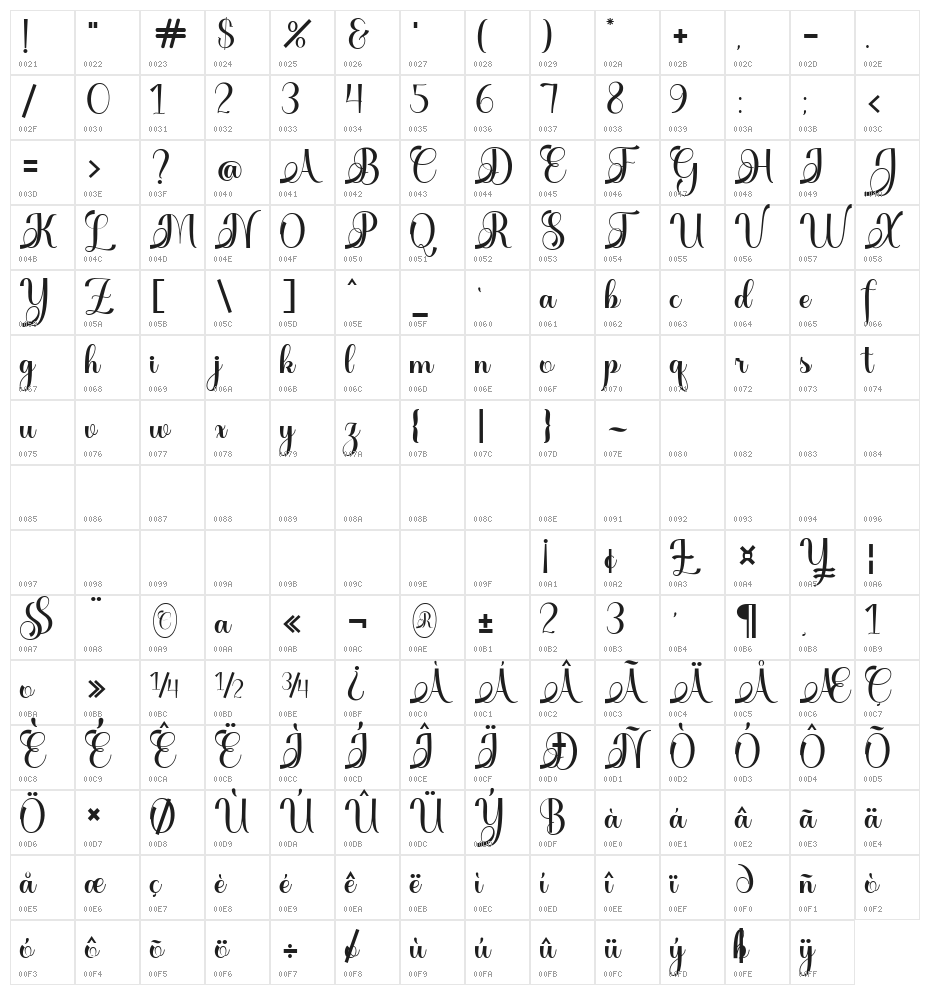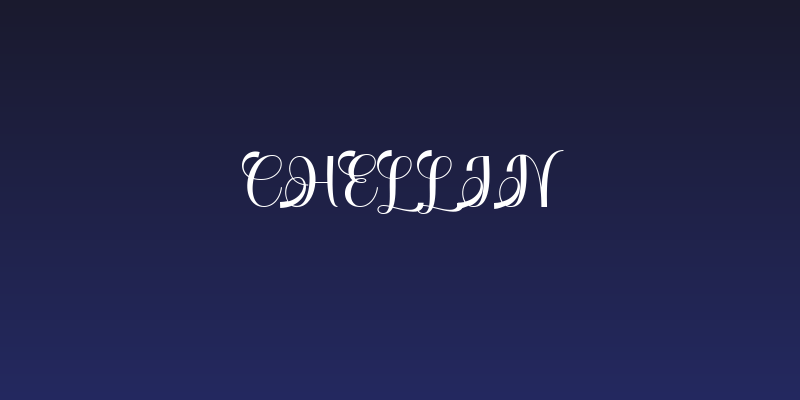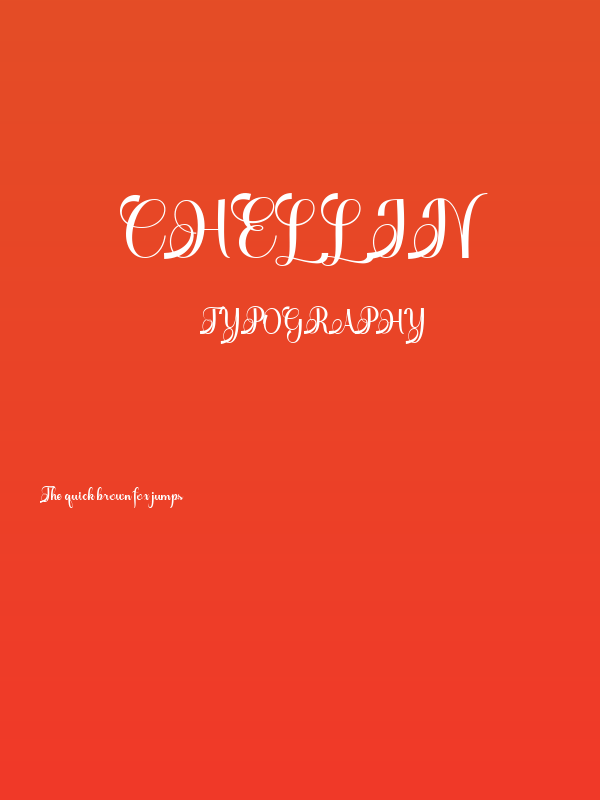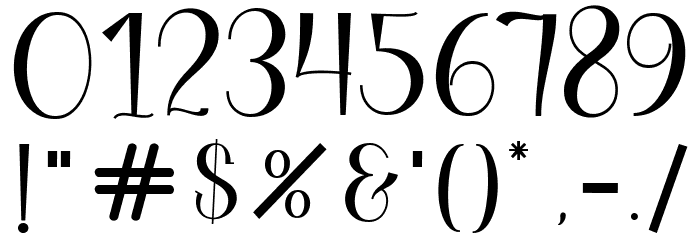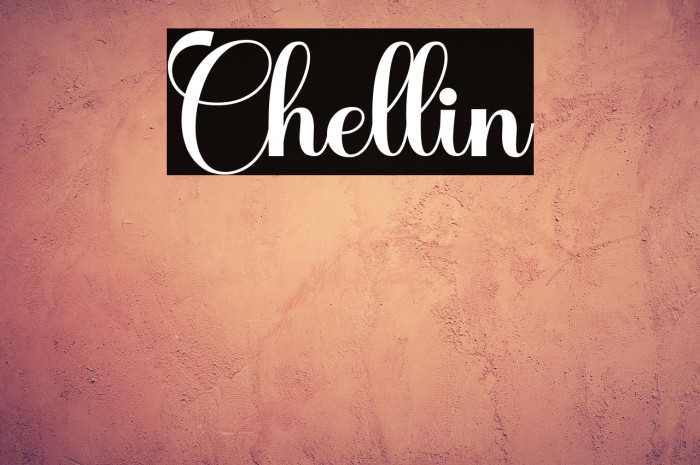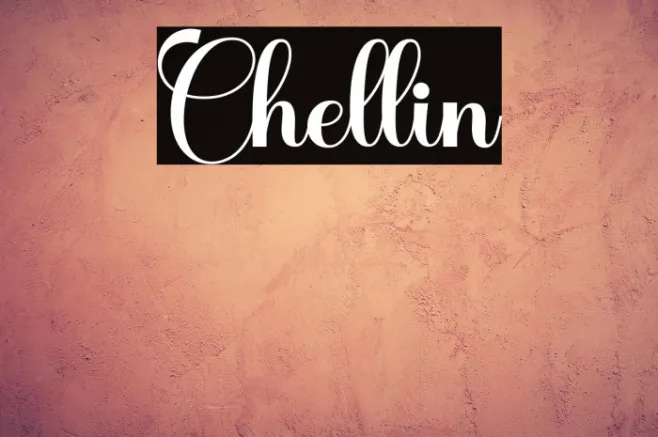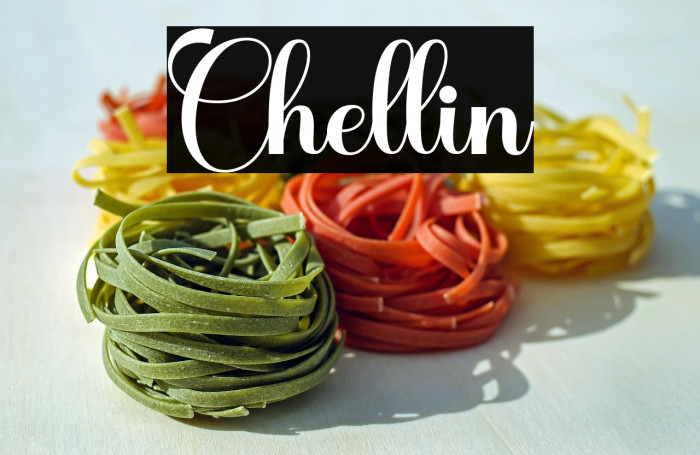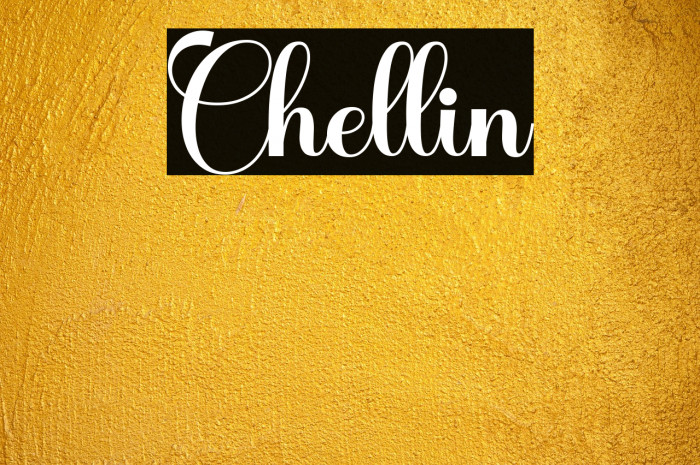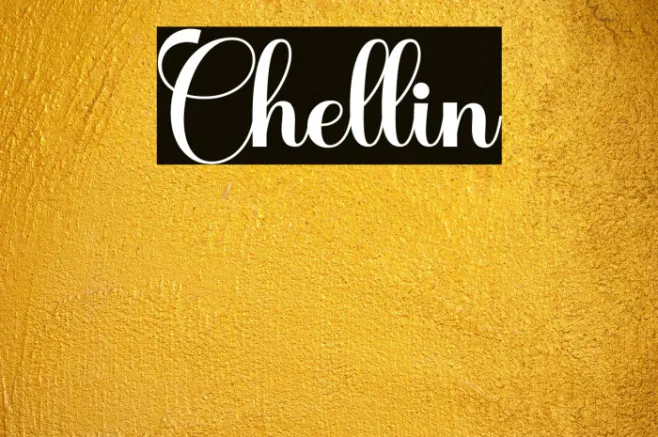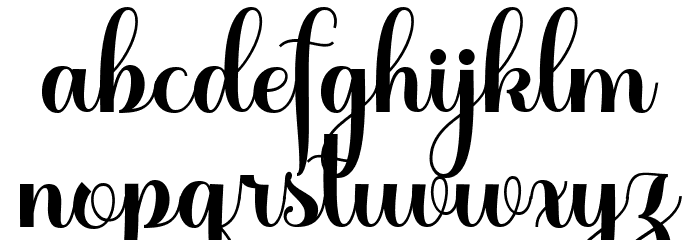
Chellin Font
Chellin Description
This font features a decorative and elegant style with a blend of cursive and bold characteristics. The uppercase letters are adorned with intricate swirls and loops, giving them a sophisticated and artistic flair. The lowercase letters maintain a bold presence with smooth, flowing lines that enhance readability while retaining a stylish appearance. Numbers and special characters follow the same aesthetic, ensuring consistency throughout. The overall design is both modern and classic, making it versatile for various applications. Its unique style is perfect for projects that require a touch of elegance and creativity.